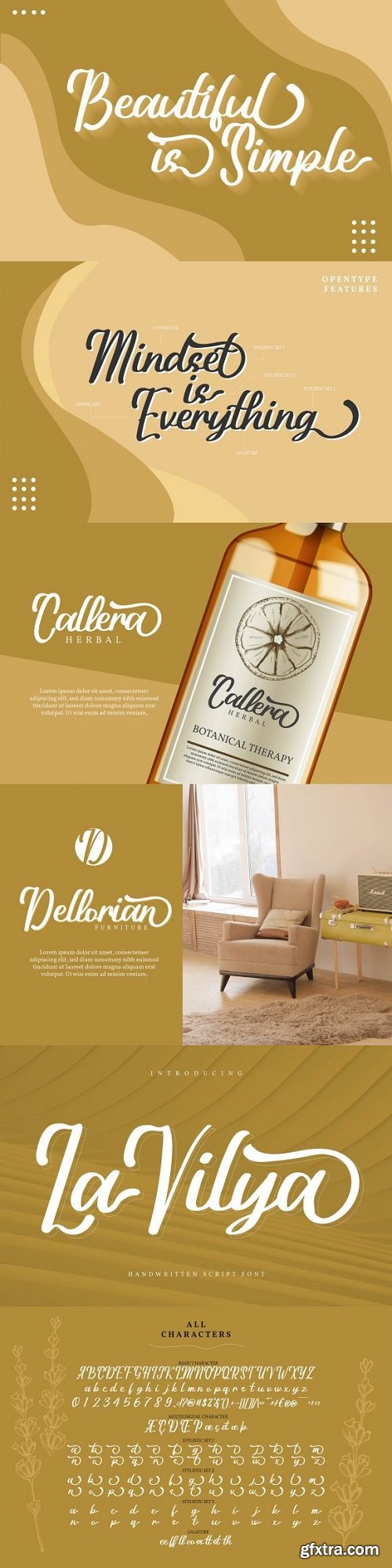
La Vilya Font
La Vilya is an unique handwritten font. Whether you’re using it for crafting, digital designing, presentations, or greeting card making, it’s perfect!